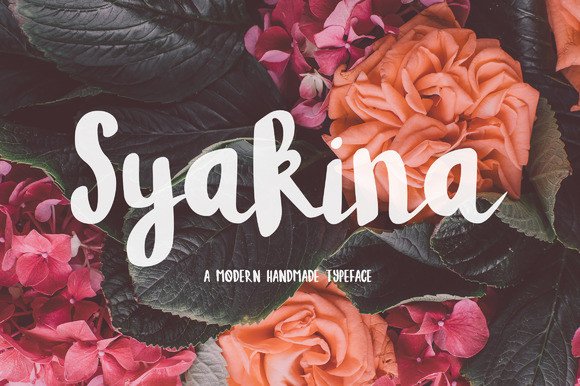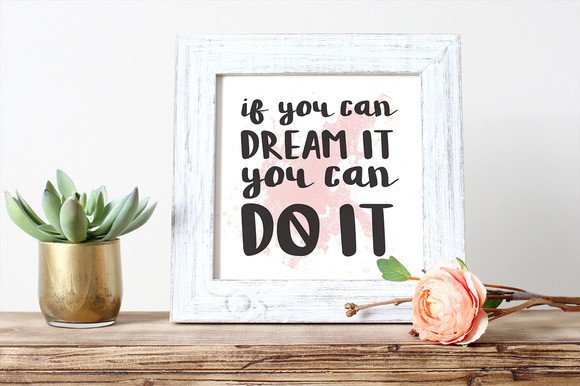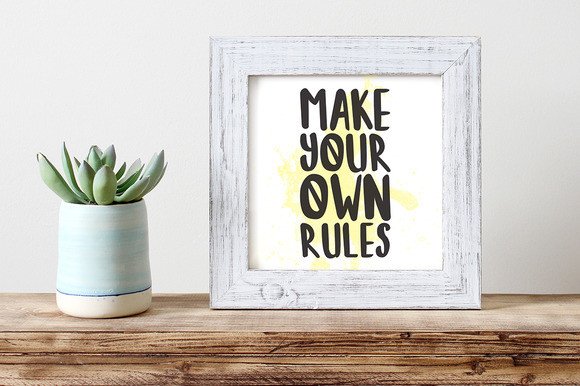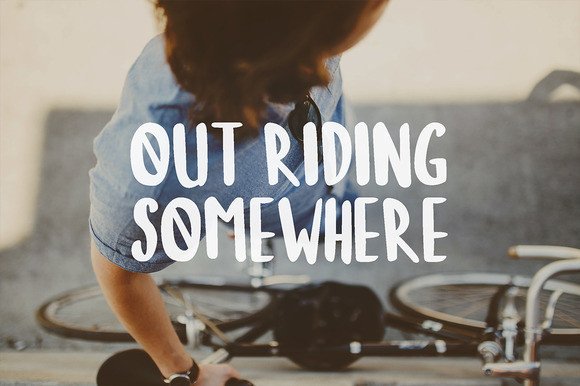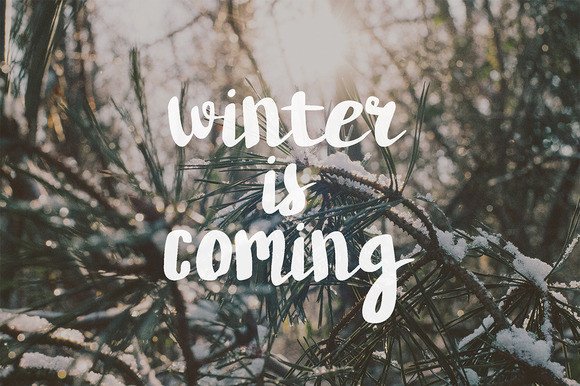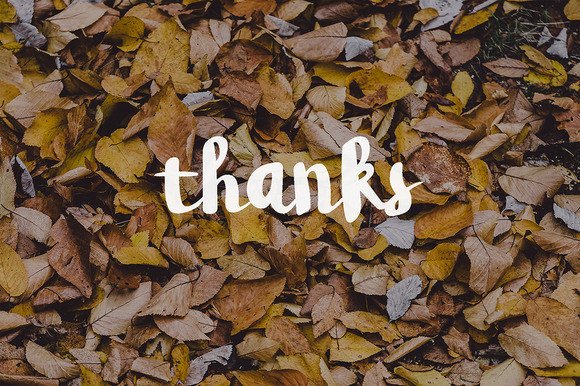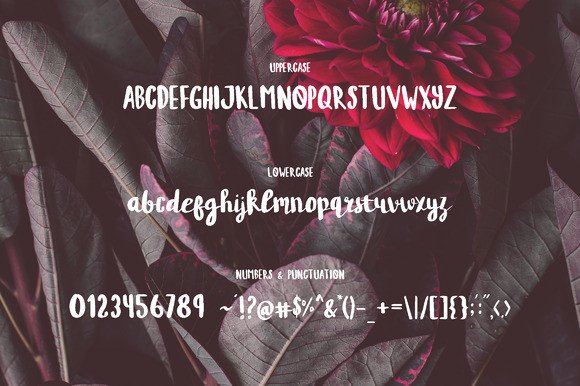
Syakina Font
About Syakina Font
Syakina is a beautiful digitally created handwritten brush font. The thick smooth letters make it stand out and make it very readable.
The font has a modern feel to it and can be used for many types of projects. Just browse through the images and you will get enough inspiration on how to use this.